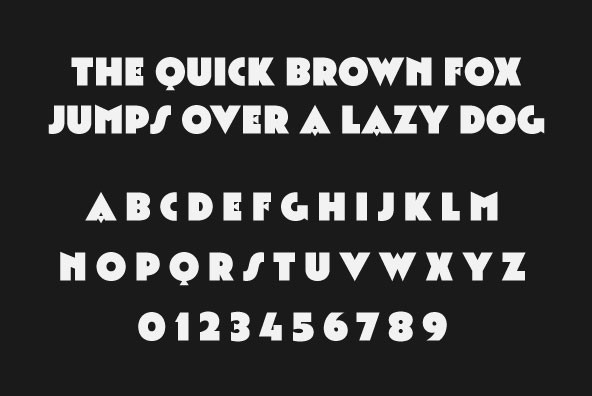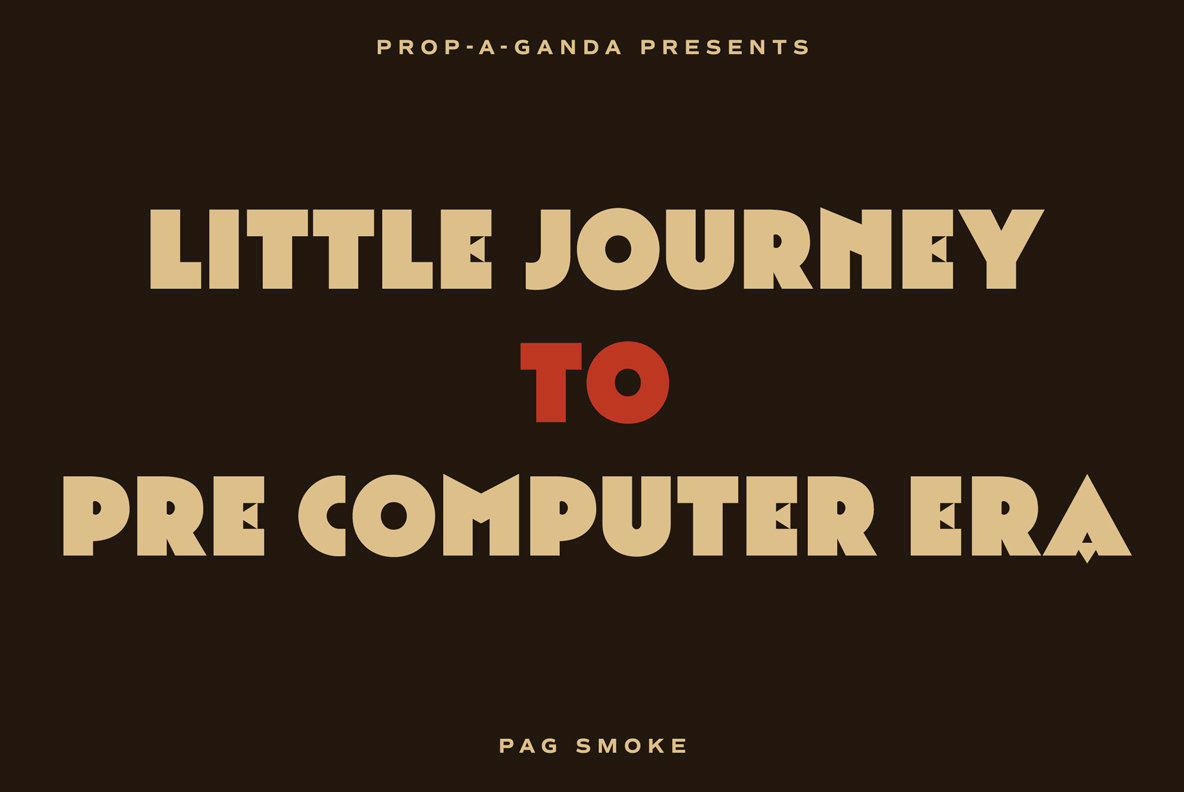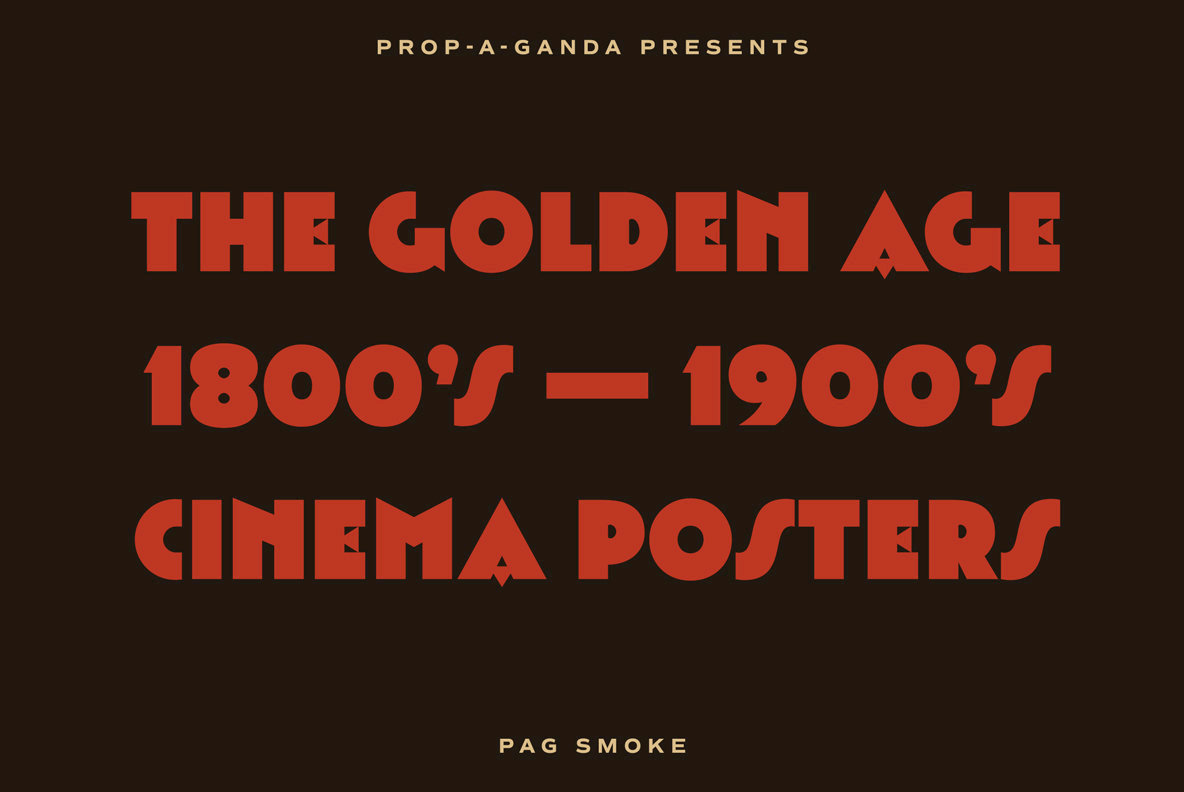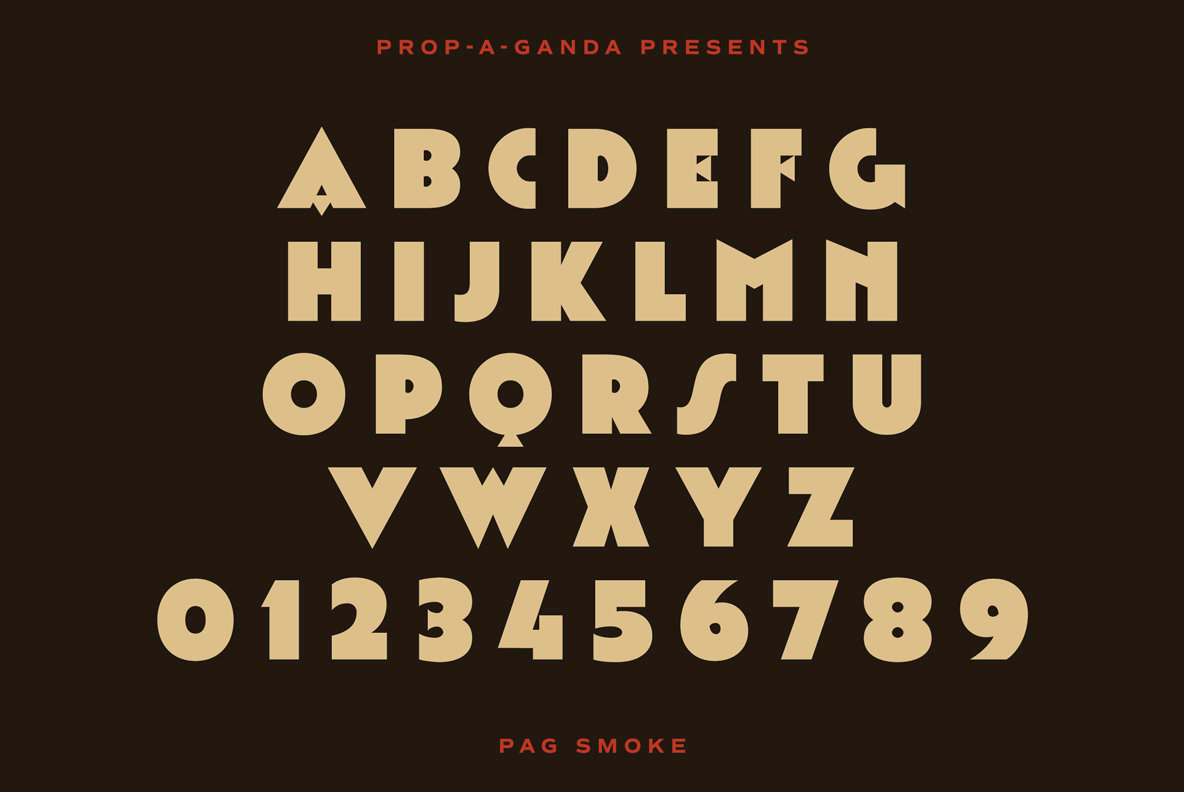
Inspired by and based on retro propaganda posters, movie posters, shopfront lettering & advertisements in the early 20th century.
PAG Smoke PAG Smoke
Inspired by and based on retro propaganda posters, movie posters, shopfront lettering & advertisements in the early 20th century.